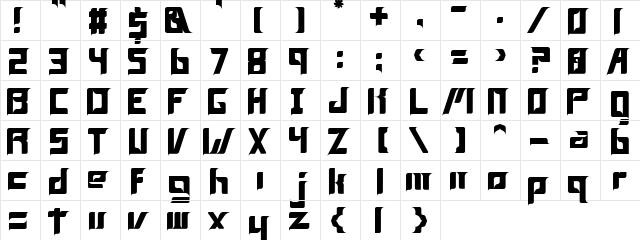
Firgo Regular
| Designer | Bill Beachy and Katie Major |
Design Context for Firgo Typeface
Firgo is a composed and adaptable typeface that performs quietly and consistently across a wide range of design contexts.